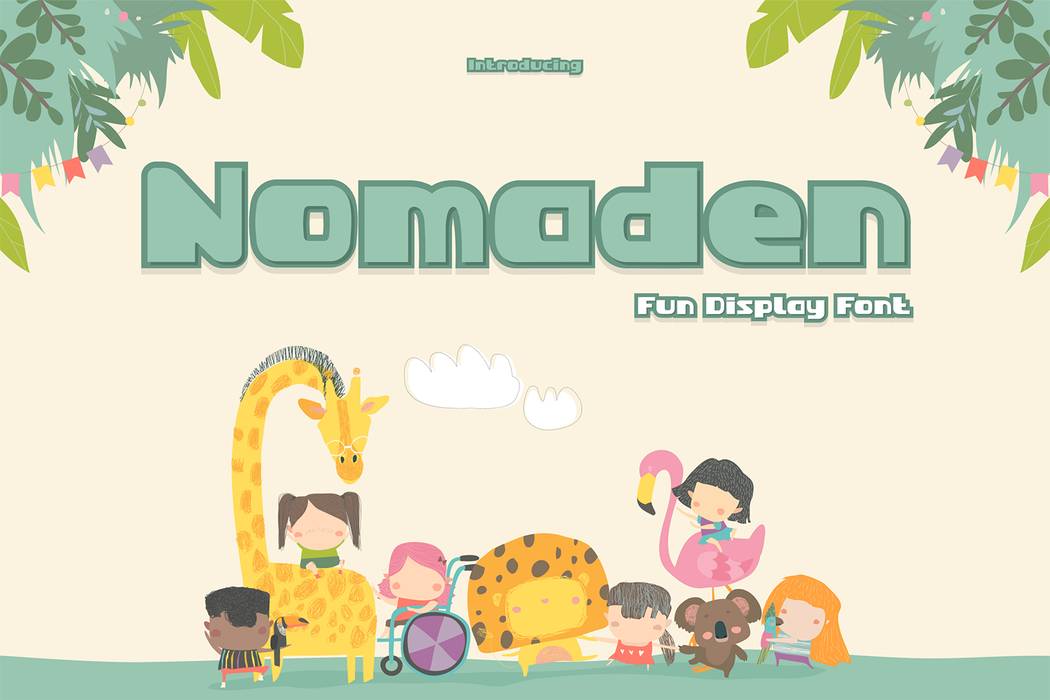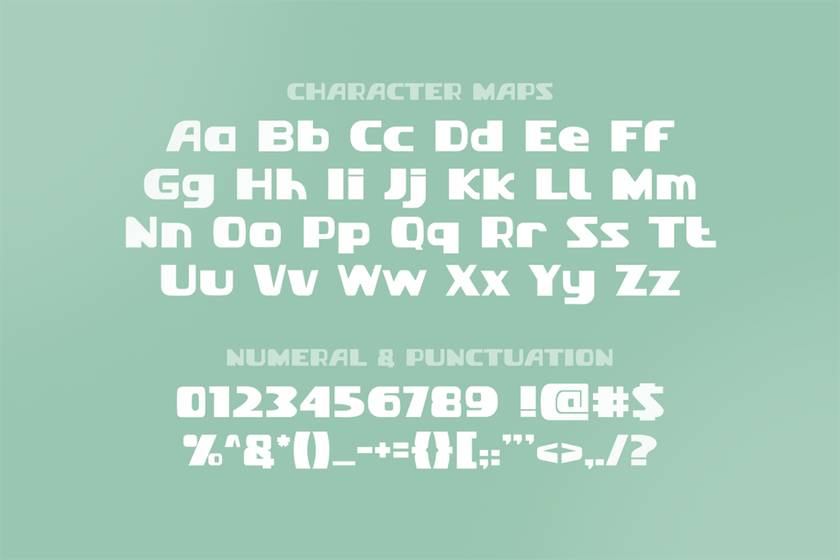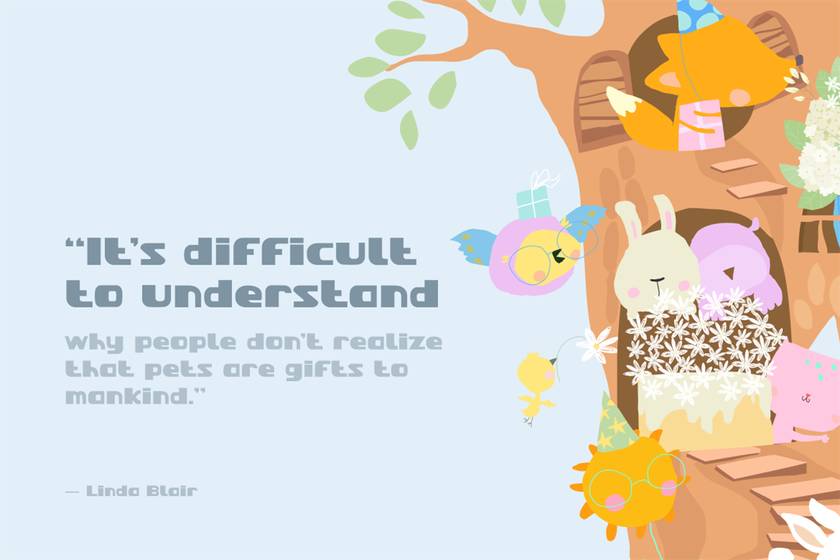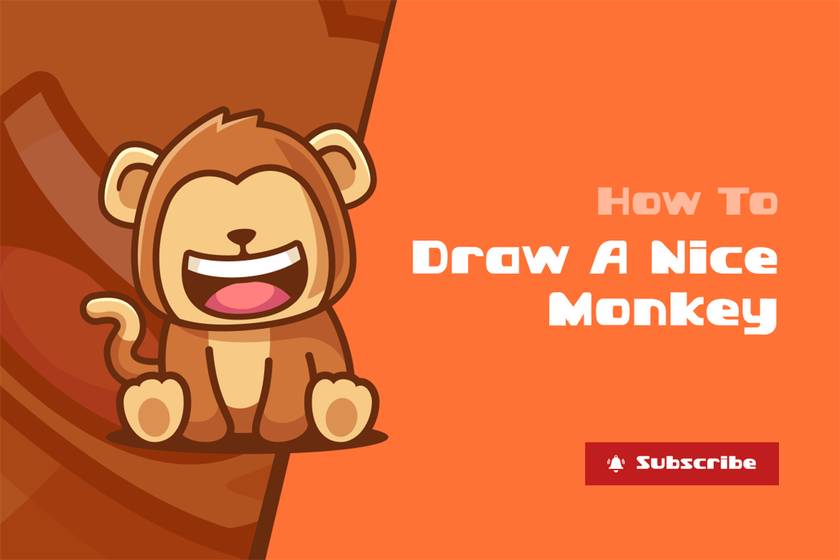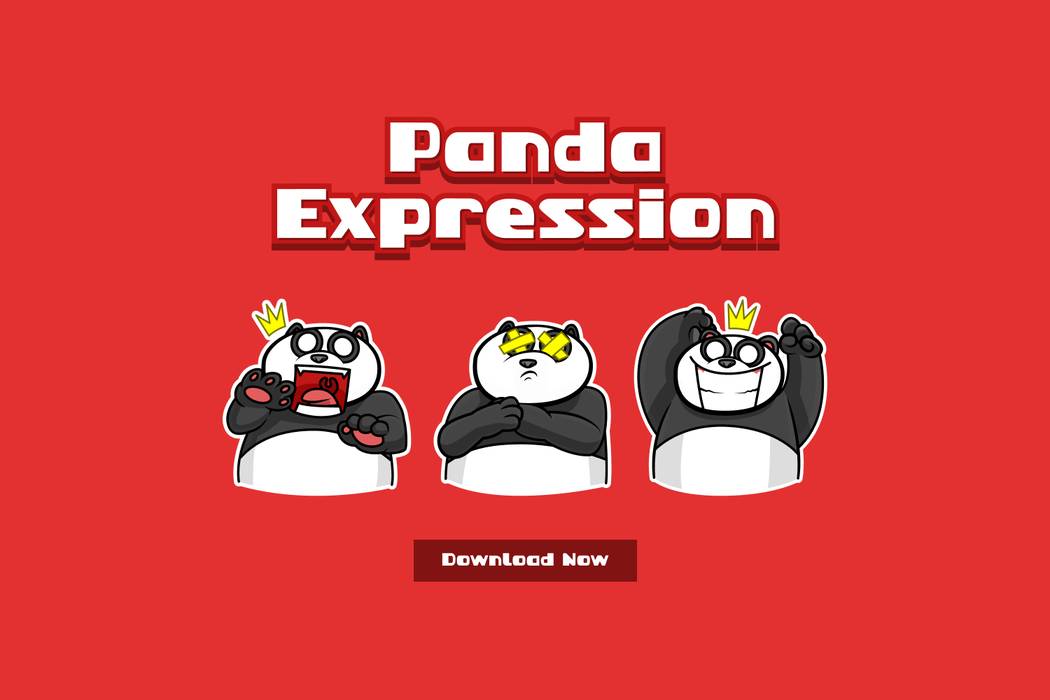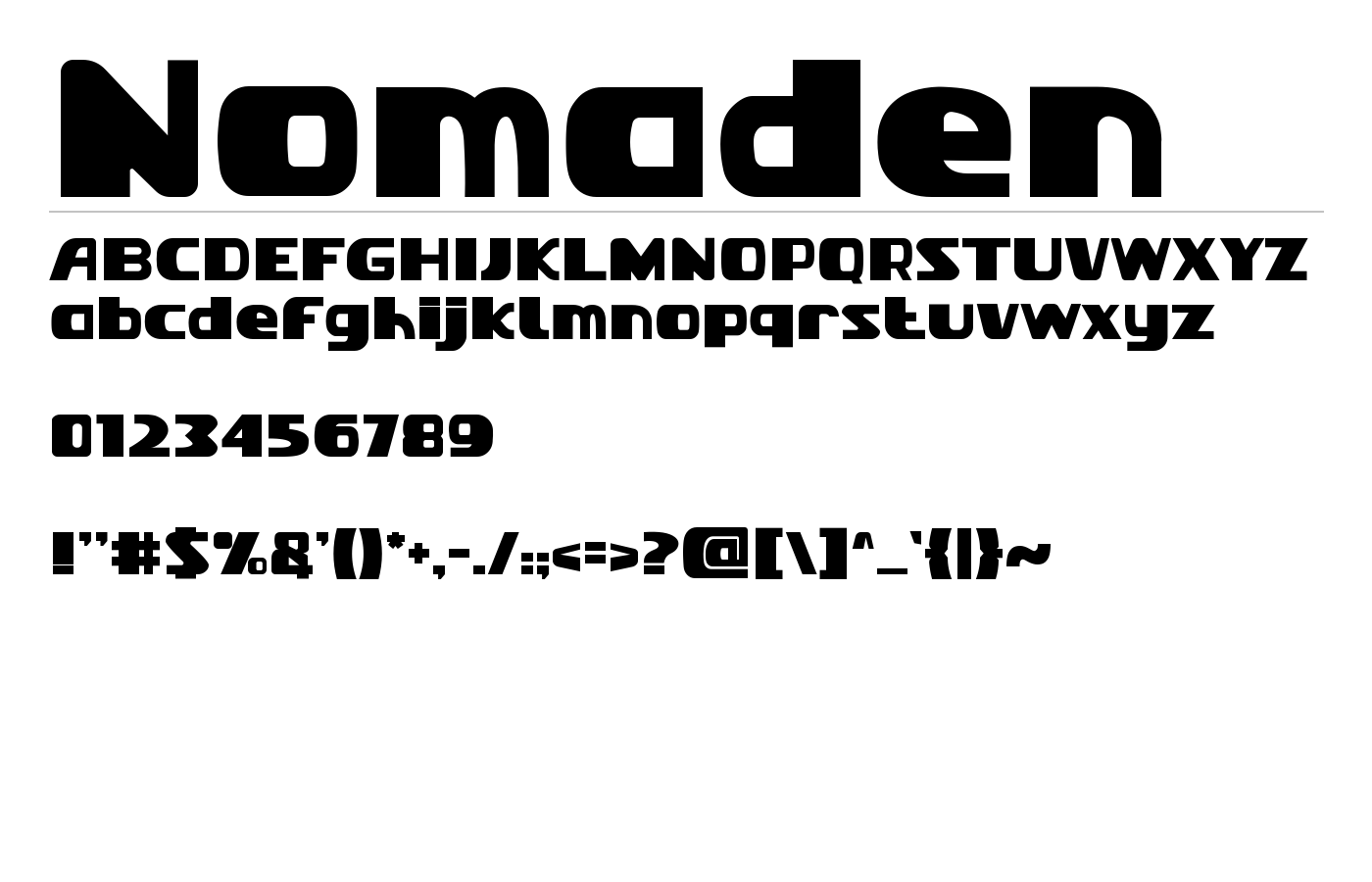
Nomaden is a bold, geometric sans serif font with a strong, compact presence and distinctive angular curves that give it a modern and slightly futuristic vibe. With its heavy weight, tight spacing, and unique letterforms, it works best for impactful headlines, logos, and branding where a confident and memorable style is desired. This font’s robust character makes it ideal for designs that want to communicate strength, innovation, and a contemporary edge.
Nomaden Font
About Nomaden Font
| Font family | Nomaden Font |
| Designer | PINISIART Team |